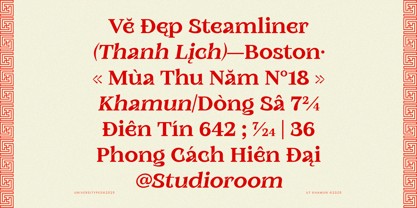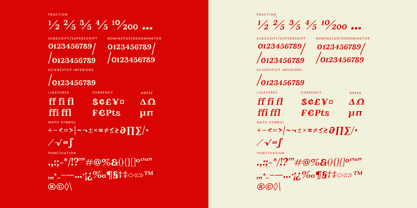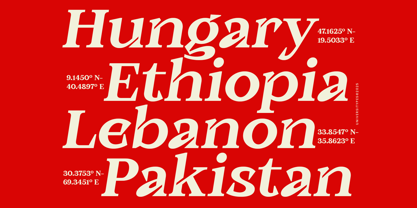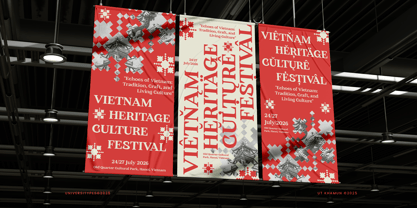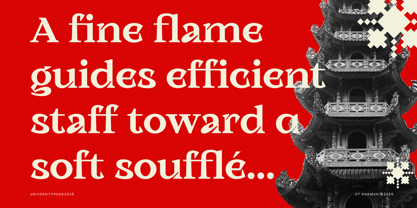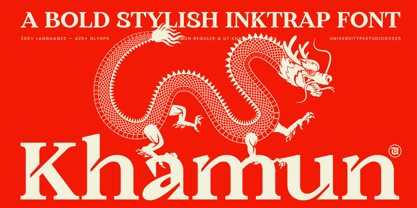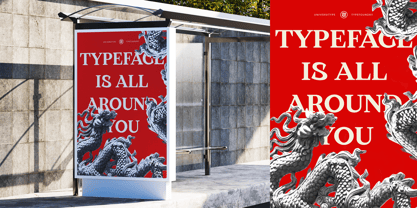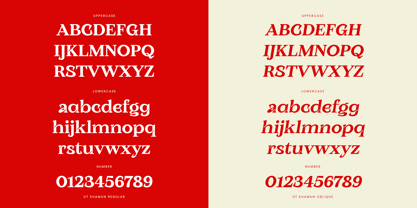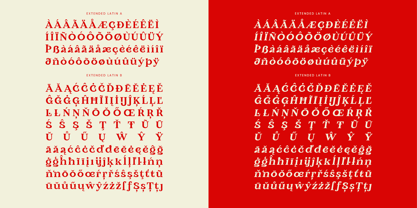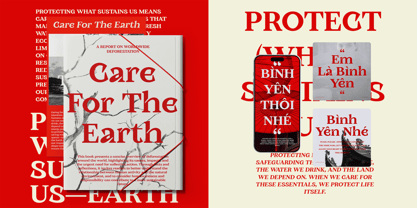
UT Khamun
Die Schriftfamilie UT Khamun wurde von Muh. Aswar, Andi Syahdang entworfen und von Universitype veröffentlicht. UT Khamun enthält 2 Stile und Familienpaketoptionen. Mehr über diese Familie
UT Khamun is a bold inktrap serif built for strong visual statements. Heavy strokes, sharp cuts, and deep inktraps give the letters a confident texture that feels solid and expressive at display sizes. The balance between dramatic details and controlled proportions makes this typeface feel powerful, crafted, and intentional—perfect when typography needs to lead the conversation. Best for Branding, logos, editorial headlines, posters, cultural visuals, fashion graphics, packaging, social media typography Key features Bold serif with extreme inktrap details Strong contrast for impactful headlines Display-focused proportions Extended Latin language support Designed for large-scale typography Font details 425+ glyphs 200+ languages supported Extended Latin A & B Uppercase & lowercase Numerals & punctuation Accented characters Stylistic alternates Single-storey alternate characters File compatibility Adobe Illustrator, Photoshop, InDesign, Figma, Canva, and other major design software
Designer: Muh. Aswar, Andi Syahdang
Foundry: Universitype